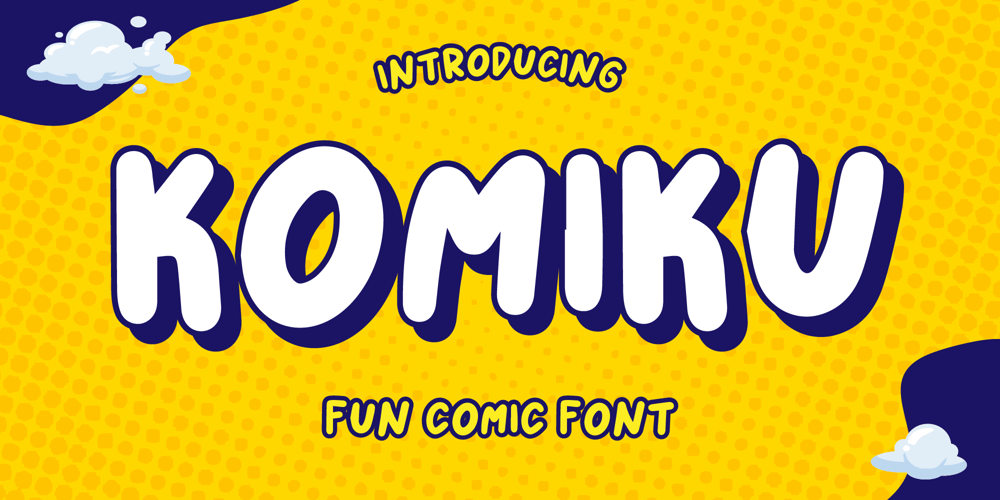
Komiku
Komiku font
Komiku Font Family was designed by Iwan Alwan and published by Artiveko. Komiku contains 2 styles and family package options. Komiku is a fun, happy kid font designed by Iwan Alwan, featuring playful and bubbly letterforms that radiate joy and creativity. Perfect for children’s books, cartoons, posters, and playful branding, Komiku brings a cheerful, energetic vibe to any project. With multilingual support, ligatures, and alternates, Komiku is versatile while maintaining its whimsical and lighthearted aesthetic, making it ideal for designs that appeal to young audiences or projects that need a fun and lively touch.